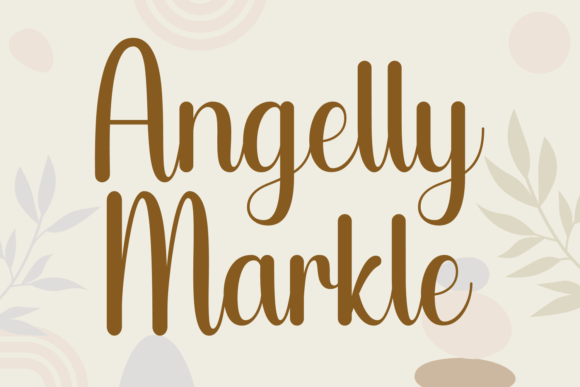
Enter Angelly Markle Font, a gorgeous script font that’s sure to elevate your typography game. This chic and elegant font is perfect for adding a touch of sophistication to your designs. With its authentic look and feel, you’ll be able to create beautiful, professional-looking typography in no time. Whether you’re working on a wedding invitation, a branding project, or a personal blog, Angelly Markle Font is a valuable addition to your library.
Angelly Markle Font Key Features
- Unique Characteristics: Angelly Markle Font features a unique blend of modern and elegant styles, with subtle flair and cursive connections, making it perfect for creative and artistic designs.
Angelly Markle Font Review
Overall, I have mixed feelings about the Angelly Markle Font. While it has some lovely qualities, there are also some areas where it falls short.
- ✨ Elegant script: The Angelly Markle Font has a beautiful, flowing script that would be perfect for adding a touch of elegance to invitations, wedding stationery, or other special occasions.
- ✨ High-quality glyphs: The font includes a wide range of glyphs, including ligatures, swashes, and flourishes, which add to its overall sophistication.
- ✨ Customizable: Angelly Markle Font allows for some level of customization, such as adjusting the size and color of the text, which can be helpful for designers.
- ⚠️ Limited font sizes: While the font is beautiful at larger sizes, it can become difficult to read at smaller sizes, which may limit its use in certain contexts.
- ⚠️ No bold or italic styles: Unfortunately, Angelly Markle Font does not include bold or italic styles, which can make it difficult to use in situations where emphasis is needed.
Overall, I would recommend the Angelly Markle Font for designers who are looking for a beautiful, elegant script to add a touch of sophistication to their designs. However, it may not be the best choice for situations where readability or emphasis are crucial.
For optimal results, use Angelly Markle Font in headings and titles.
It’s ideal for creating elegant and sophisticated designs.
Use it for wedding invitations, baby shower invitations, or any other special occasion.